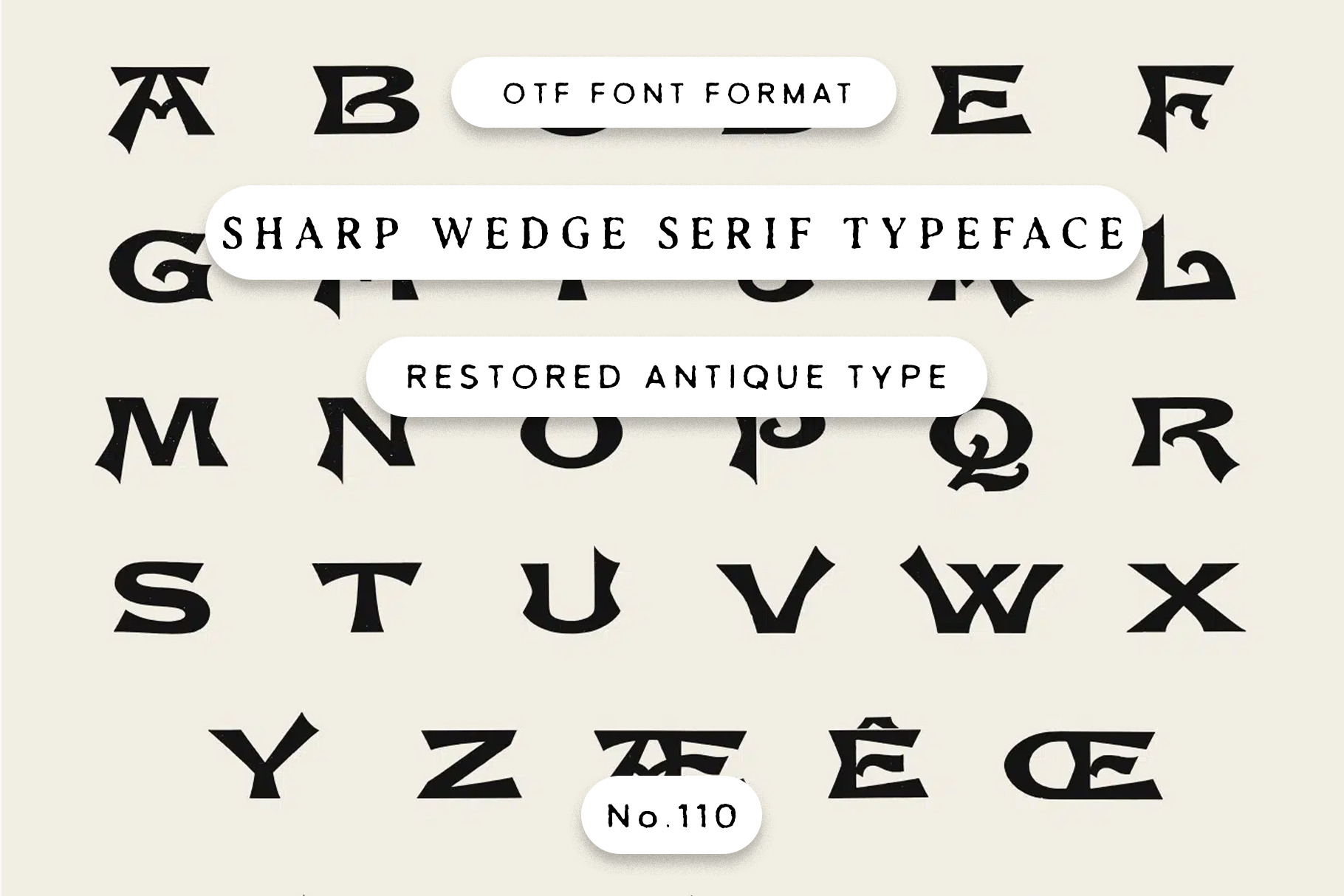
Sharp Wedge Serif Typeface
CL Antique No.110: Sharp Wedge Serif Typeface – Curled Forms and Pointed Spurs
We're breathing new life into antique type!
This font is part of our growing collection of restored typefaces, carefully revived from original specimens in the Century Library archive. Each one is a direct translation of the past – scanned, cleaned up, and converted into a working font so you can actually use these historic letterforms, not just look at them.
CL Antique No.110 is a bold decorative serif with sharp wedge terminals, curled counters, and a playful medieval flavour that runs across capitals, lowercase, numbers, and punctuation. It's strong enough for posters, fantasy titles, brewery labels, packaging, or game branding that needs quirky storybook energy without losing its legibility.
These aren't modern interpretations or redesigns. What you see is what was once printed – charming imperfections and all. The character set is limited to what was available in the original source material, which varies from font to font.
Perfect for adding an authentic vintage feel to your designs – whether you're working on a book cover, a poster, branding, or just something personal – these fonts carry all the texture, age, and personality you'd expect from type with deep historic roots.